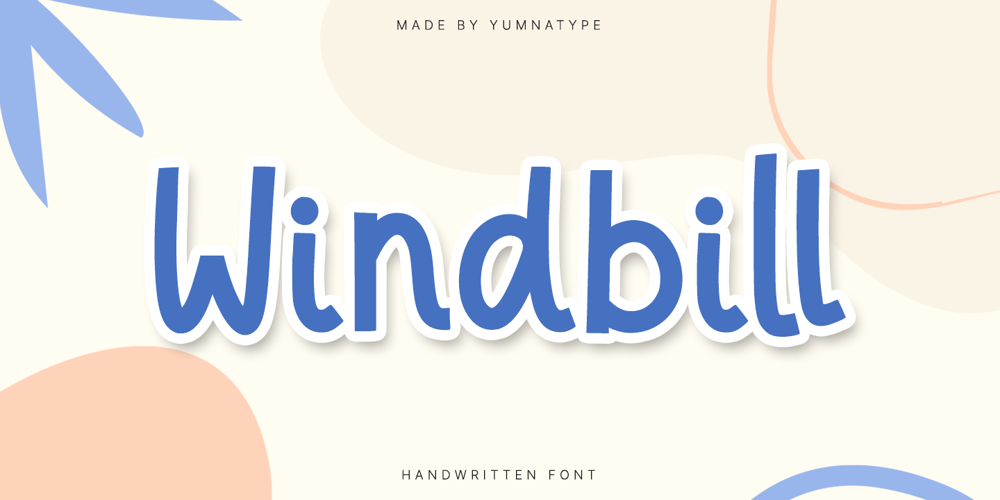
Windbill Font Family was designed by Donis Miftahudin and published by Yumna Type. Windbill contains 1 styles and family package options. Windbill is a charming script font that exudes a playful and whimsical vibe. Designed with a light weight, it offers a gentle touch to any project, ensuring readability while maintaining a delightful appearance.The playful style of Windbill is defined by its rounded shapes, giving each letter a friendly and approachable character. The consistent letter proportions ensure a harmonious and balanced look. In addition, enjoy the features here.Features: Ligatures Multilingual Supports PUA Encoded Numerals and Punctuations Windbill fits in headlines, logos, posters, flyers, branding materials, print media, editorial layouts, and many more designs. Find out more ways to use this font by taking a look at the font preview.Thanks for purchasing our fonts. Hopefully, you have a great time using our font. Feel free to contact us anytime for further information or when you have trouble with the font. Thanks a lot and happy designing.